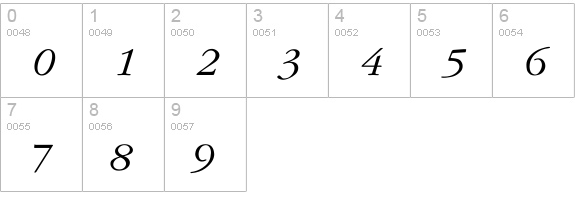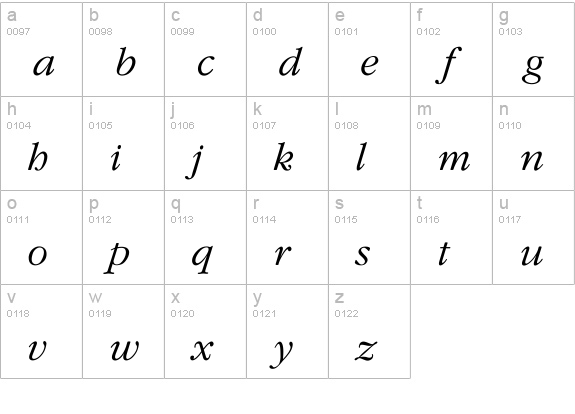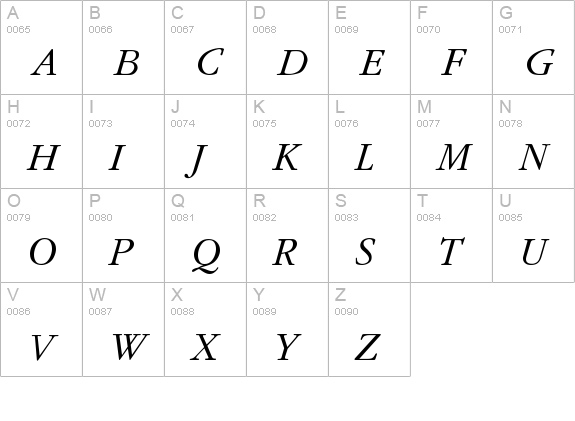
Vanleard-Italic Font Details
Vanleard-Italic is a distinctive, italic variant in the Vanleard typeface family \xE2\x80\x94 well suited to design and typography projects.
Introducing Vanleard-Italic font - a stylish and elegant typeface designed to elevate your projects with a touch of sophistication. The italicized design of Vanleard-Italic exudes a sense of grace and modernity, making it a perfect choice for various creative endeavors such as branding, invitations, posters, and more. This exquisite font is not only visually appealing but also highly versatile, allowing you to use it across a wide range of design applications. Its sleek lines and subtle curves add a sense of flair and uniqueness to any text, making it stand out effortlessly. The best part? Vanleard-Italic font is completely free to download at FontsMarket.com, giving you easy access to this premium typeface without any cost. So why wait? Elevate your design projects today with the timeless elegance of Vanleard-Italic font.